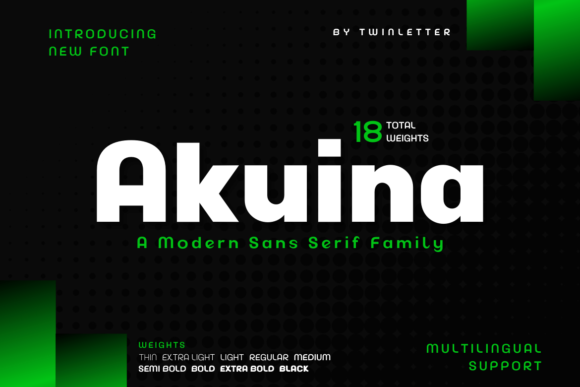
The Akuina Font: A Modern Sans Serif for Creative Projects
Have you ever been in the middle of a design project, and suddenly, you’re stuck on finding the perfect font? I recall a recent experience where I was working on a book cover design, and my client requested a modern, elegant look. After hours of searching, I stumbled upon the Akuina font, which instantly caught my attention. Its minimalist and clean vibe was exactly what I needed to elevate my design. In this article, I’ll share my experience with the Akuina font, its features, and how to make the most of it in various design platforms.
An Honest Review of Akuina Font
What I Love About Akuina Font
• ✨ Elegant and modern sans serif design
• ✅ Minimalist and clean vibe, perfect for a wide range of designs
• 💡 Highly versatile, suitable for book covers, magazines, social media posts, invitations, and more
• 👍 Easy to read, even in small sizes
While Akuina font is an excellent choice for many design projects, there are a few minor quirks to consider:
• ⚠️ Limited availability of stylistic alternates, which might not be a deal-breaker for some designers
• 🤔 May not be the best fit for body text in lengthy documents, as it’s optimized for headlines and short paragraphs
The Backstory of Akuina Font
The Akuina font was designed with the intention of creating a clean and modern sans serif font, suitable for a wide range of creative projects. While the actual designer and inspiration behind Akuina font might be unknown, it’s clear that the font was crafted with attention to detail and a passion for minimalist design.
Q: What type of designs is Akuina font best suited for?
A: Akuina font is highly versatile and can be used for book covers, magazines, social media posts, invitations, and more.
Q: Is Akuina font available in different weights and styles?
A: Akuina font might be available in various weights and styles, but this information is not readily available. You may want to check with the font foundry or designer for more information.
Q: Can I use Akuina font for body text in lengthy documents?
A: While Akuina font is elegant and easy to read, it might not be the best fit for body text in lengthy documents, as it’s optimized for headlines and short paragraphs.